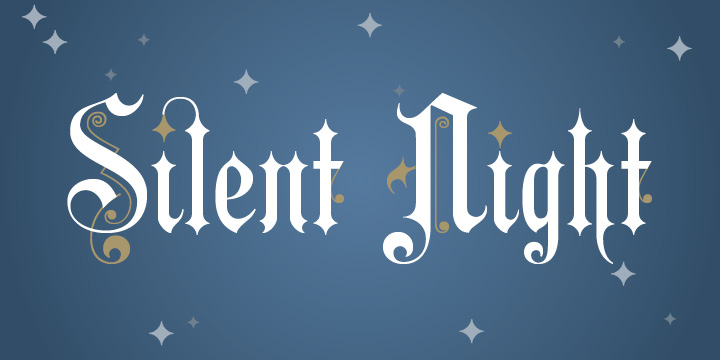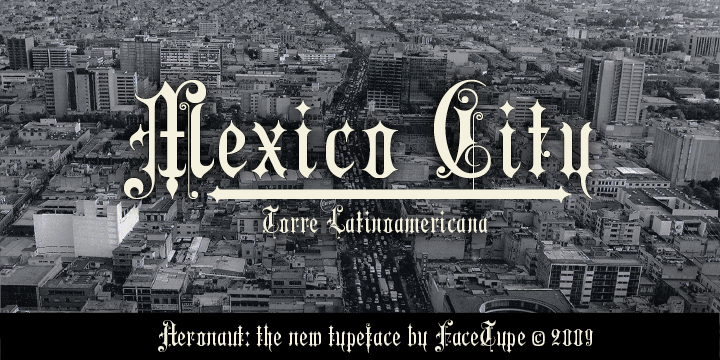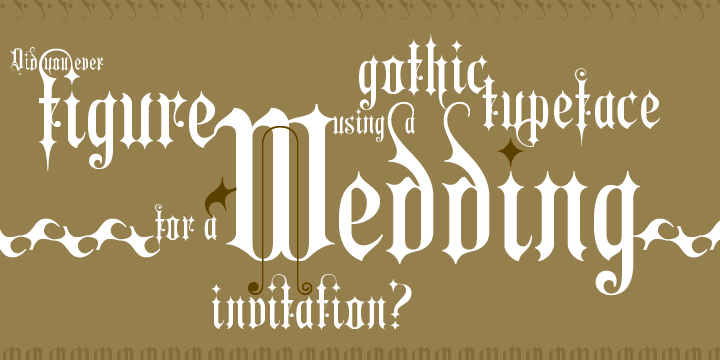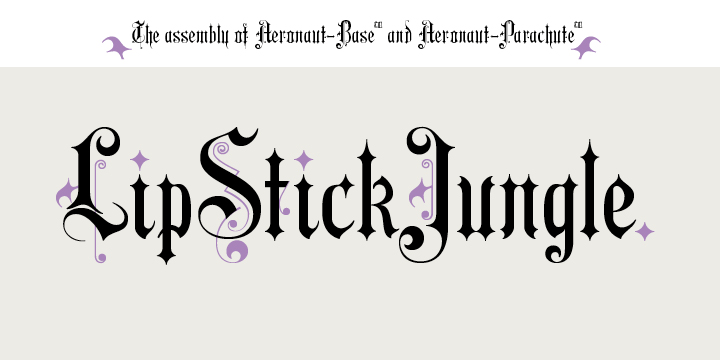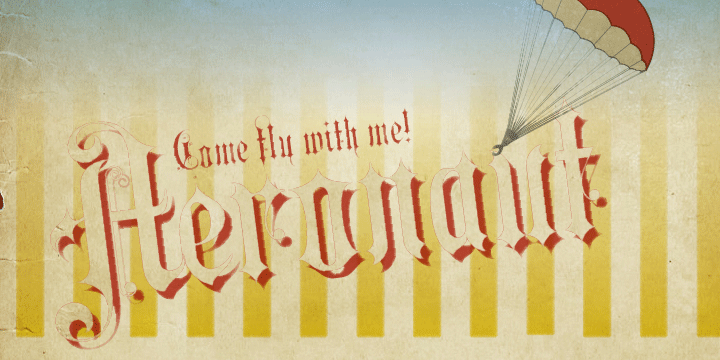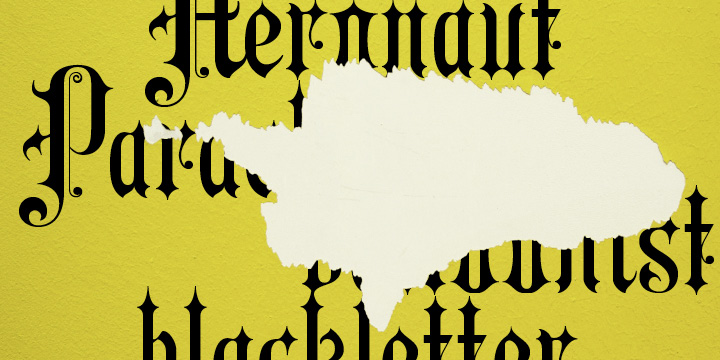
Aeronaut has been inspired by Kirchengotische Schrift, a font that can be found in a German font book from 1879 entitled Vorlegeblätter für Firmenschreiber. Given its name, it was designed for religious publication.
The glyphs of Aeronaut are derived from Textualis also known as Textura or Gothic Bookhand. Textualis represented the most calligraphic form of blackletter types and is today regarded as quintessentially Gothic.
The decorative elements of Aeronaut, the swashes we call parachutes and the squiggly arrows of the upper-case characters soften the font’s Gothic appearance. It’s the reason why we labeled it a “Neogothic typeface that radiates trendy ease.” Make it as modern as you like it to be.
Aeronaut-Base and Aeronaut-Parachute allow bi-color compositions. Simply place them on top of each other to create playful, two-colored headlines. Aeronaut-Balloon is similar to Aeronaut-Parachute but offers even longer swashes.